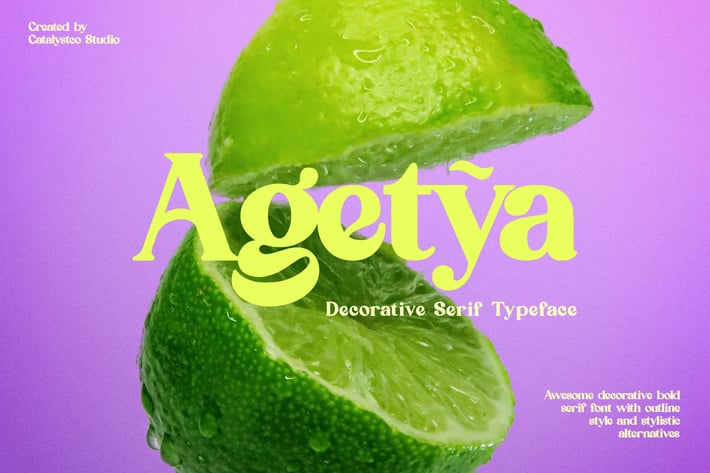
Agetya Decorative Serif Typeface
Agetýa is a decorative serif typeface with bold curves, expressive contrast, and a playful retro spirit. Designed with artistic proportions and charming details, it combines modern display aesthetics with vintage serif character. The typeface includes both Regular and Outline styles, offering flexible options for branding, packaging, posters, and expressive visual compositions.
Perfect for stylish editorial layouts, retro-inspired designs, fashion branding, product labels, social media graphics, and bold typographic titles. With complete uppercase, lowercase, punctuation, numerals, and stylistic alternates, Agetýa provides a versatile and decorative serif experience ideal for designers seeking a unique and standout font.
Suitable for editorial design, retro posters, fashion branding, product packaging, artistic titles, vintage-inspired layouts, social media design, label & logo development, and creative projects that need a decorative and stylish serif font with expressive personality.
Ligatures & Alternate
* Regular & Outline Font Version